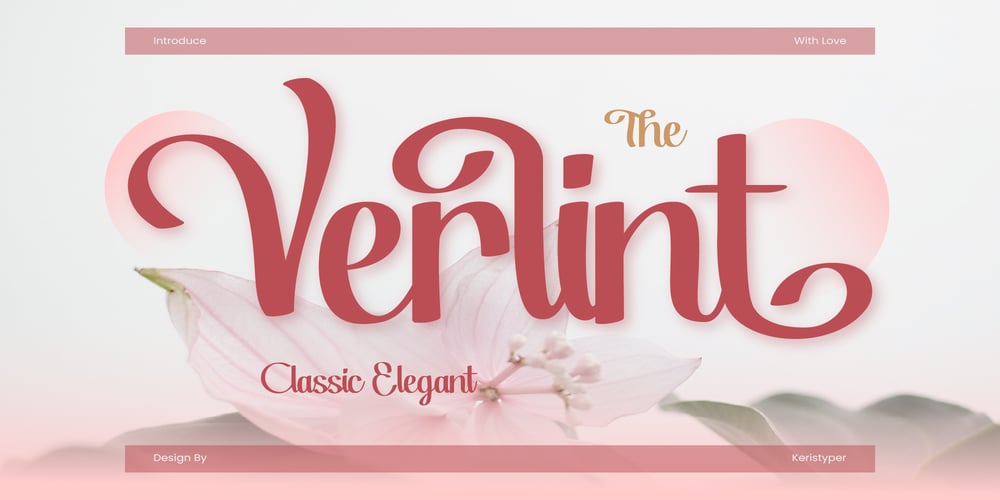
Verlint Font Family was designed by Tezar Tantular and published by Keristyper Studio. Verlint contains 1 styles and family package options. Verlint is a classic and elegant serif font that adds a touch of sophistication to any design project. Its clean and refined lines make it perfect for luxurious branding, editorial work, or any other application where a sense of timeless elegance is required.Featured: Standard, Uppercase & Lowercase Numeral & Punctuation Multilingual : ä ö ü Ä Ö Ü ß ¿ ¡ Alternate & Ligature PUA encoded We recommend programs that support the OpenType feature and the Glyphs panel such as Adobe applications or Corel Draw, so you can use all the variations of the glyphs.Hope you enjoy our fonts!